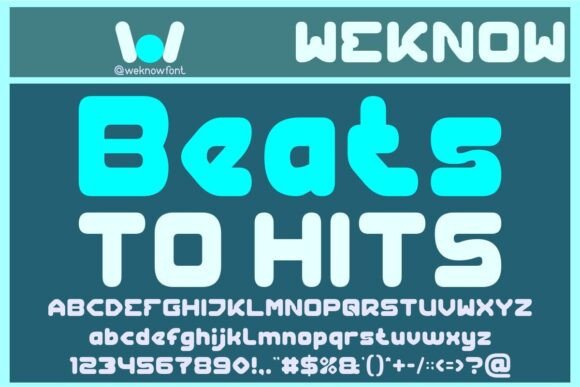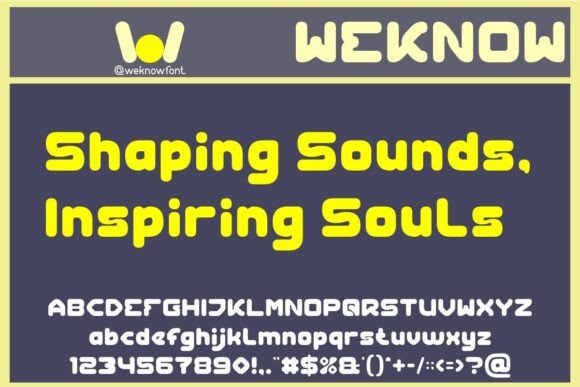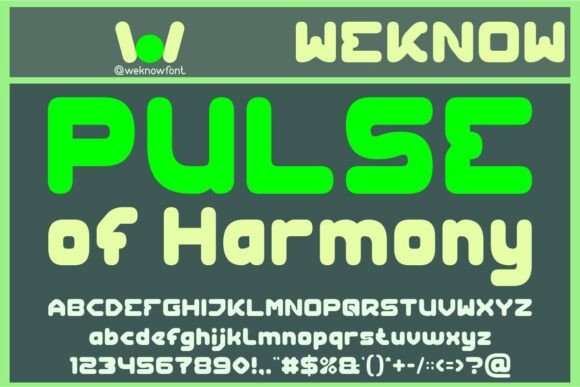
Introduction to Record Company Font
You’re scrolling through your social media feed, and a striking design catches your eye. Maybe it’s a futuristic logo, a bold headline, or an eye-catching graphic. Whatever it is, you can’t help but feel a sense of wonder and curiosity. As a designer, you know that the right font can make all the difference in bringing a creative vision to life. That’s where Record Company Font comes in – a sleek and modern typeface that’s about to revolutionize your design projects.
With its innovative blend of techno and sci-fi elements, Record Company Font is the perfect addition to your design resource arsenal. Whether you’re working on a logo, headline, or brand identity, this smooth and rounded typeface is sure to infuse your creative project with a contemporary touch. And the best part? Record Company Font is available for free download, so you can experiment with it without breaking the bank.
As you dive into the world of Record Company Font, you’ll discover a wealth of possibilities for your next creative project. From apparel designs to movie-themed graphics, this high-quality font is the perfect partner in crafting a future-centric aesthetic. So why settle for ordinary when you can unleash your imagination with Record Company Font?
Key Features of Record Company Font
- High-quality font design, perfect for creative projects requiring a unique and professional touch.
- Unique characteristics include a modern, sleek aesthetic and a wide range of typographic options, making it suitable for various creative projects.
Honest Review: Record Company Font
I recently came across Record Company Font, a free download that caught my eye due to its unique, high-quality design. As a designer, I’m always on the lookout for reliable resources to enhance my creative projects. This font definitely stands out in that regard.
- ✨ The font’s clean and modern aesthetic makes it suitable for a wide range of designs, from posters to business cards.
- ✨ The transparent background allows for easy customization and blending with other design elements.
- ✨ The high-quality design ensures that the font displays smoothly on various devices and screen resolutions.
- ⚠️ The font’s limited character set may not be ideal for projects requiring extensive text content.
Overall, Record Company Font is a great addition to any designer’s toolkit. While it has its limitations, its unique design and high-quality rendering make it a valuable resource for creative projects. If you’re looking for a reliable and versatile font, this might be worth checking out.
Record Company Font is commonly used in music-related projects, such as album artwork, posters, and flyers. It’s also ideal for use in branding and marketing materials.